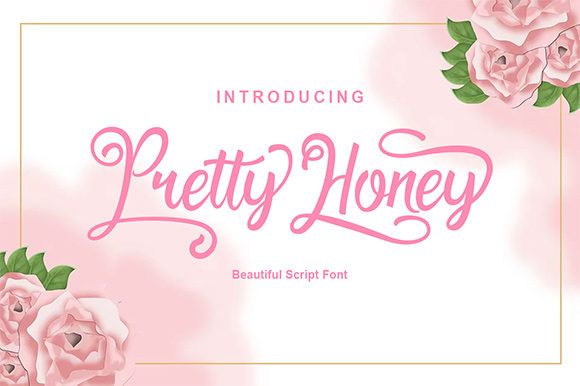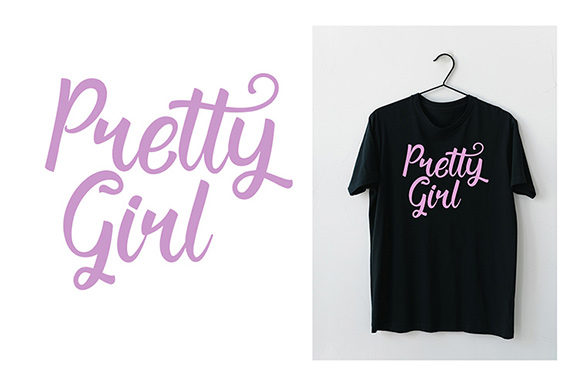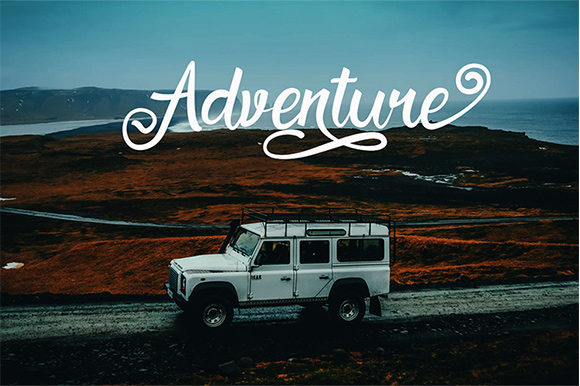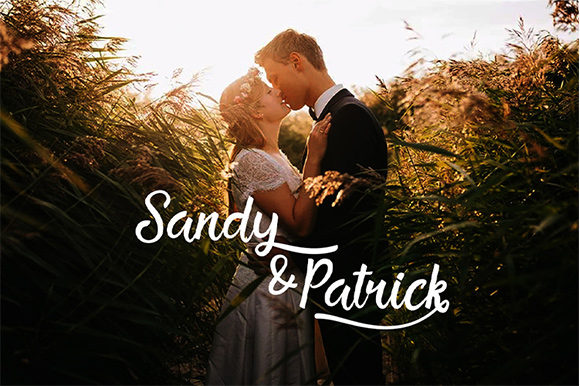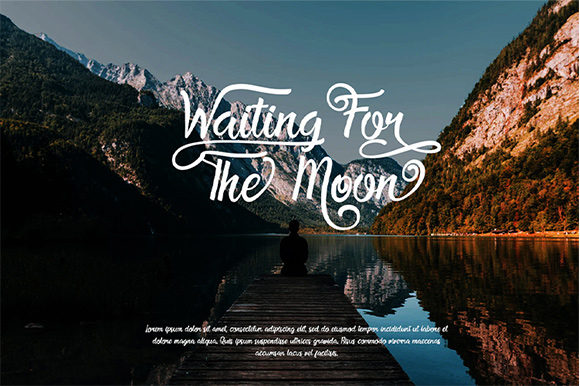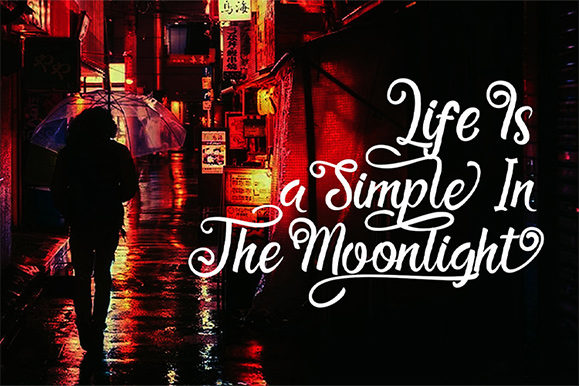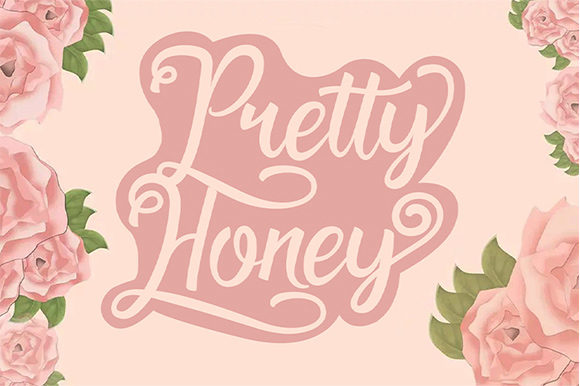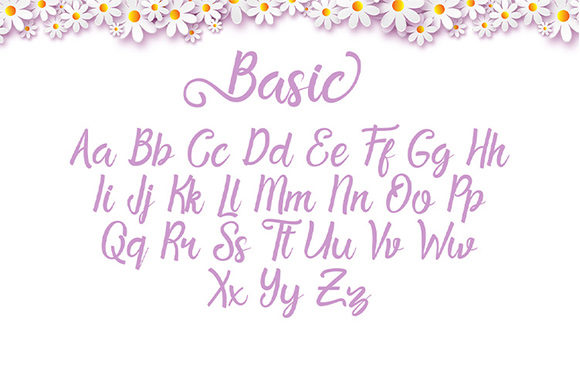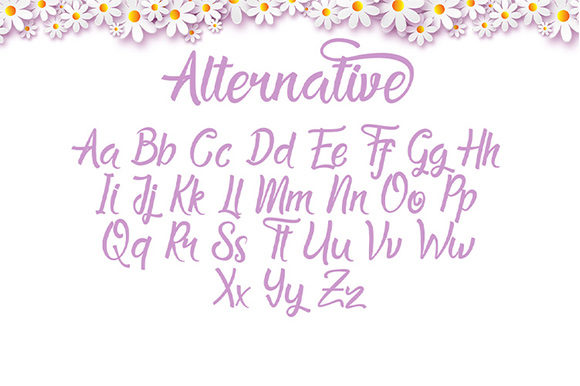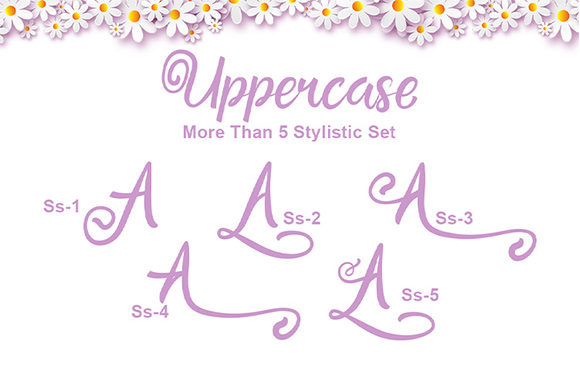
Pretty Honey Font
About Pretty Honey Font
Pretty Honey is a sweet, soft hand-lettered script. The playful rounded characters make it the perfect font for creating stunning DIY projects. Pretty Honey comes packed with a huge range of PUA-encoded swashes, that will allow you to add a decorative touch within seconds. Get inspired by its authentic feel and use it to create gorgeous wedding invitations, beautiful stationary art, eye-catching social media posts, and cute greeting cards.